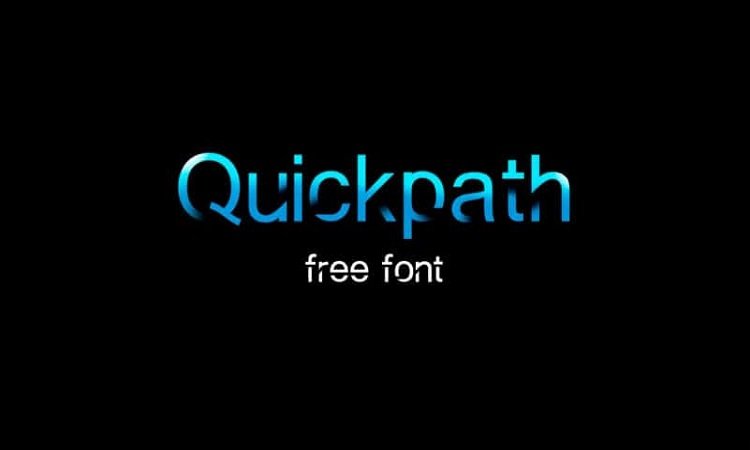
Quickpath Display Font Free
Quickpath Display Font is a simple and casual display font with a military feel. With its neat and beautiful arrangement of letters, this typeface will look outstanding in both formal and non-formal designs. This is a new modern display font from Piero Unisono. It features sleek cutouts which makes it great for creating unique logos, branding, packaging, labels & other designs.